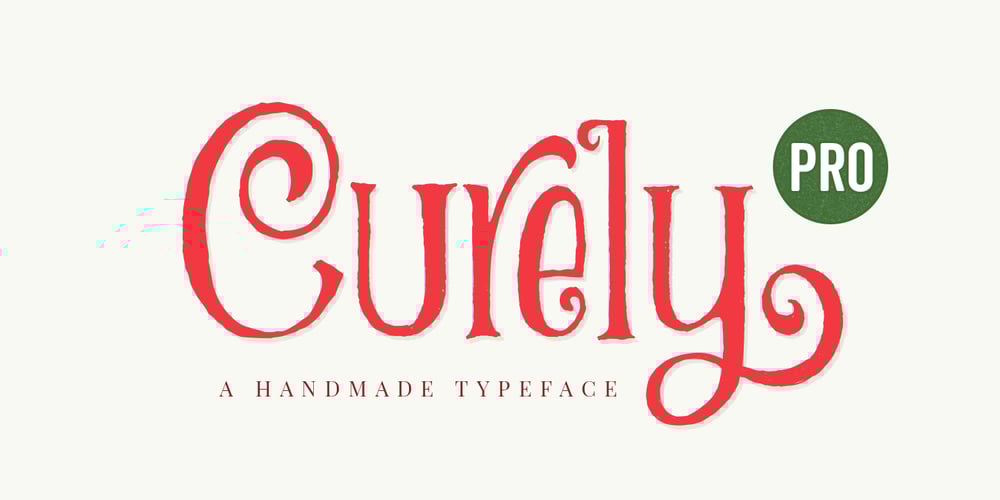
Curely Pro Font Family was designed by Abdilah and published by Konstantine Studio. Curely Pro contains 1 styles and family package options. Start from the idea of our free font, Curely, which has hit the milestone – a 70K project views on Behance and a thousand times more download (still going). Now we came up with the Pro version of it. More complex, more features, and absolutely more playful. So, please welcome, Curely Pro. A Versatile casual handmade decorative lettering typeface. Still inspired from the girly things and cuteness overload in every letters. Perfectly fit for your cute, sweet, lovely, and casual branding or logo project. Or any design stuff that need a lovely cute touch on it, let the Curely Pro smooch it all the way baby!